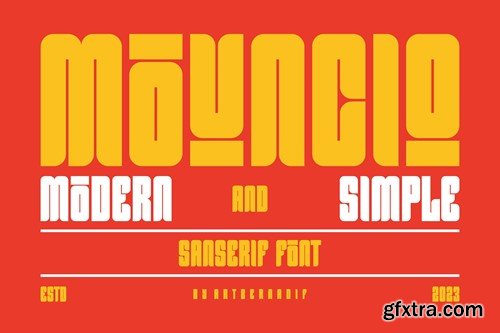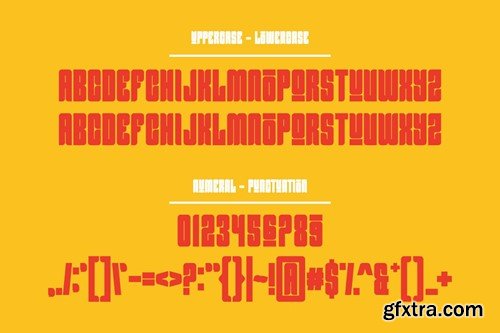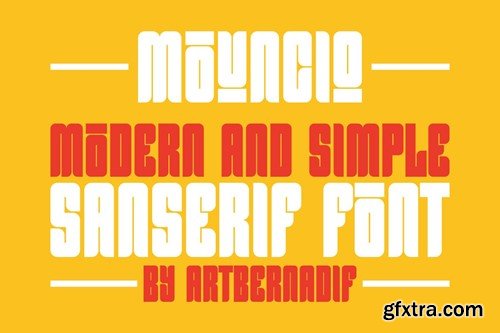
Mounciq Font
Introducing our new product Mounciq Font - Modern Font Mounciq Font- Modern Font is a bold and authentic display font. The font is suitable for any branding project like logo, t-shirt printing, esport, and many more. outstanding in a wide range of contexts. availlable